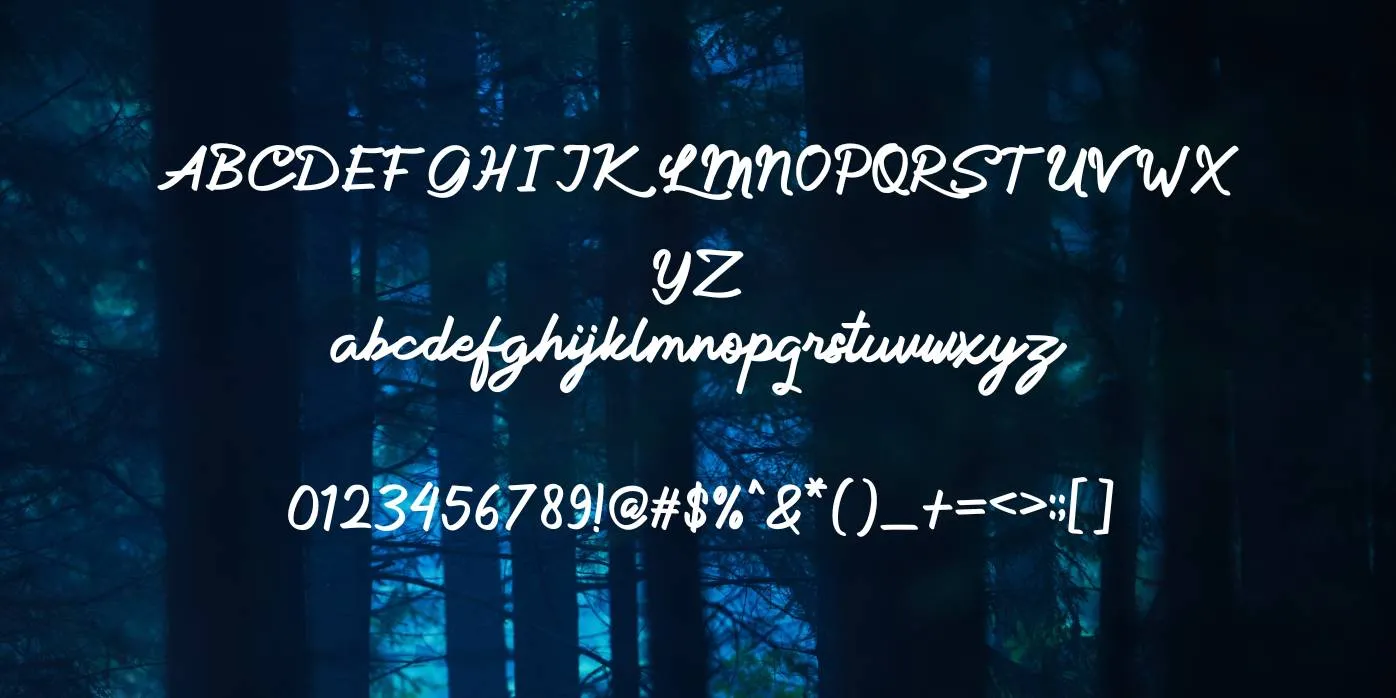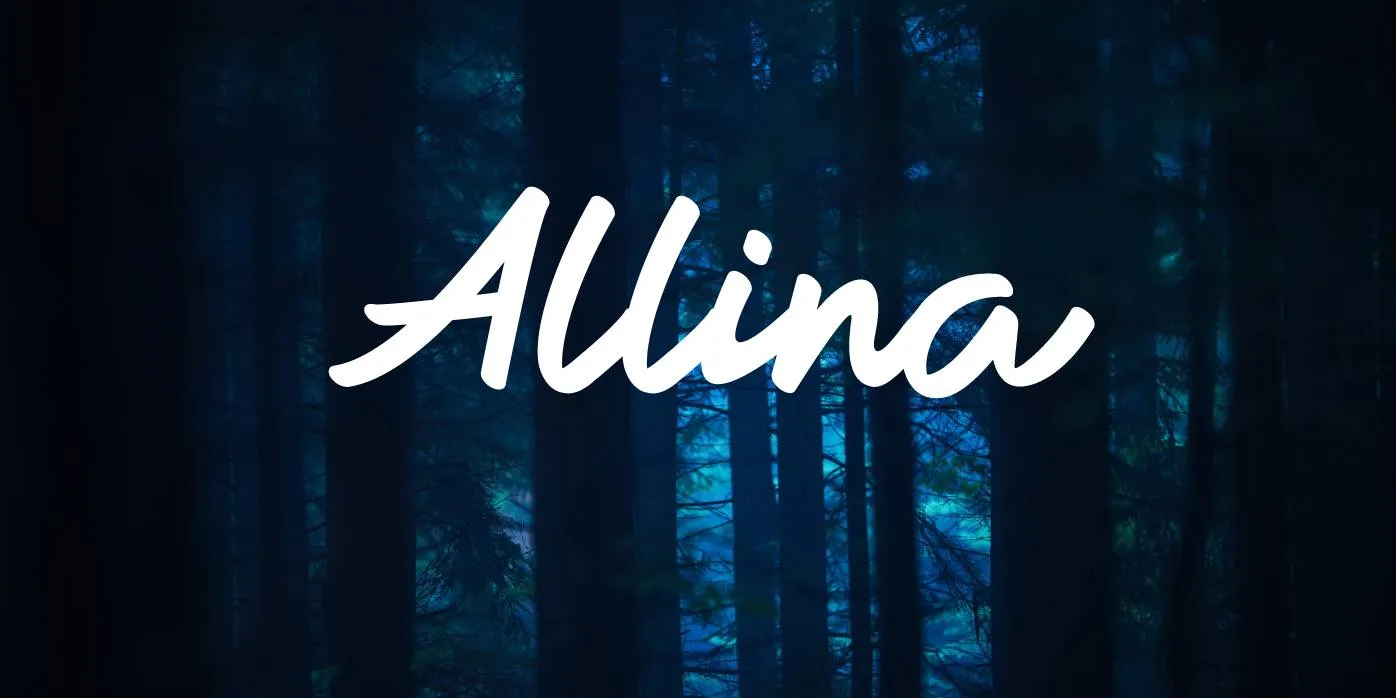
Allina Font
Here we discuss detailed information about this stylish Allina Font. It was designed by Ahmad Muslimin and the trademark for this font is Koplexs_Studio.  Unicode supported by this font is 2.0 and BMP only. It has 97 characters, 191 glyphs, and 1000 units per Em. Embedding rights are allowed for the permanent installation of this font.
The weight of the font and the width of the font are medium (normal). Mac style followed by this is Bold. The pattern of this font is Italic and it allows writing directions from left to right glyphs only. An online generator tool is also available for this font to change simple text into a stylish look with less time.
It was used in the 20th century for printing books and newspapers. After this, this don’t is famous for use in the web and all types of print designs. This font has characters, symbols, numbers, punctuations, small letters, capital letters, and special characters. It can be used for making headlines and also for writing text in body text.
It is a very professional font and it can be used for making various projects. It is a very famous font all over the world. Can I use Allina Font on Windows? Yes, It is a very stylish handwritten font and can be used for making many projects.
It can be used on Windows as well as other operating system. Who is the designer of Allina Font? It was designed by Ahmad Muslimin and the trademark of this font is Koplexs_Studio. It is a very famous and stylish font.
What are some of the most popular uses of Allina Font? It can be used for many projects because of its stylish look. It can be used for making invitation cards, printing flyers, banners, and much more.